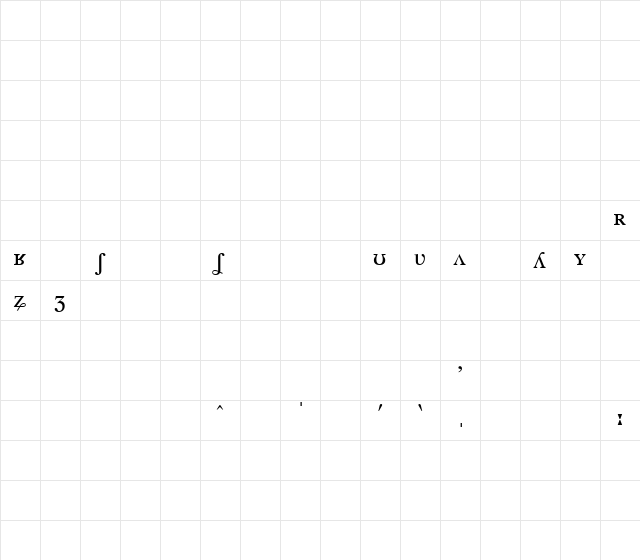
Uc_021 Regular Free Font
Uc_021 Regular
Complete Uc_021 Regular glyph index. Displaying only characters natively supported by Uc_021 Regular font.
Design Context for Uc_021
Uc_021 is a composed and adaptable typeface that performs quietly and consistently across a wide range of design contexts.